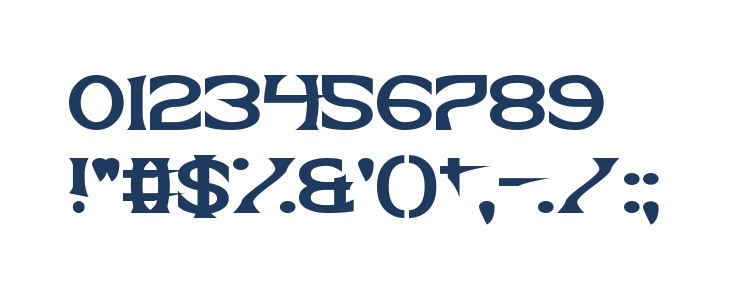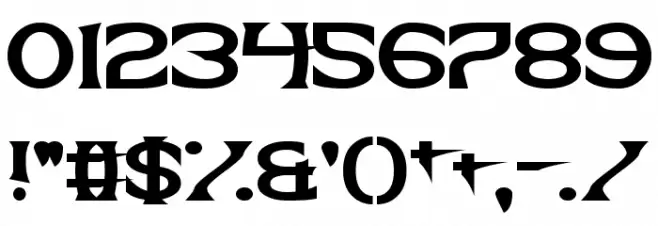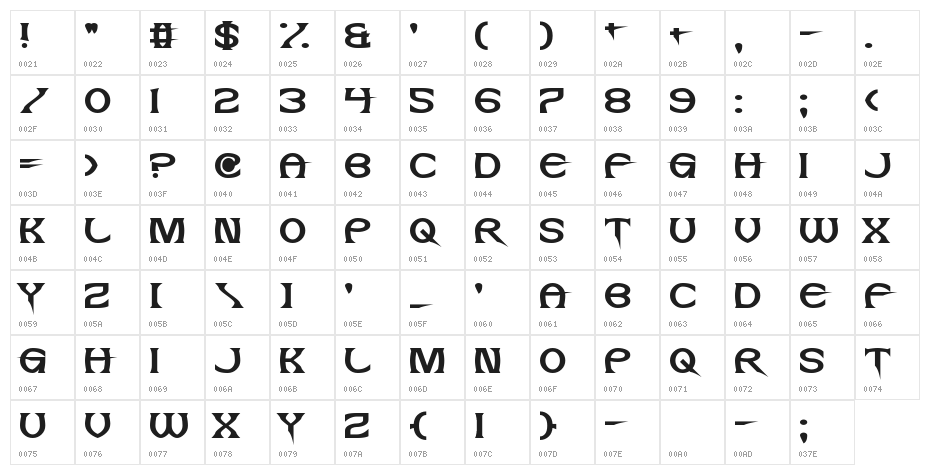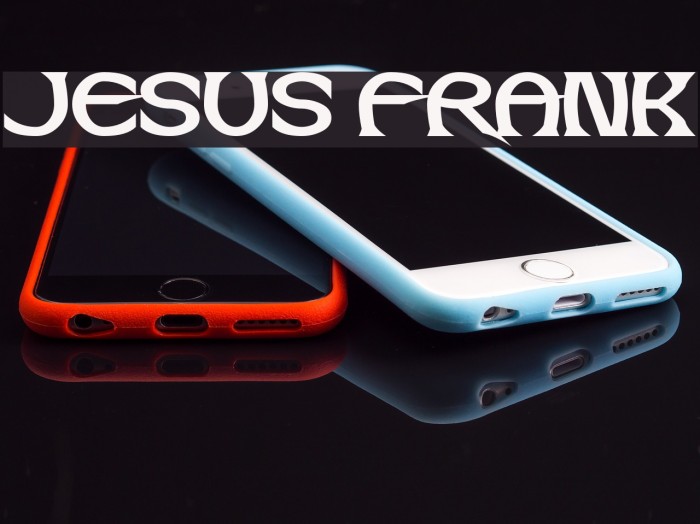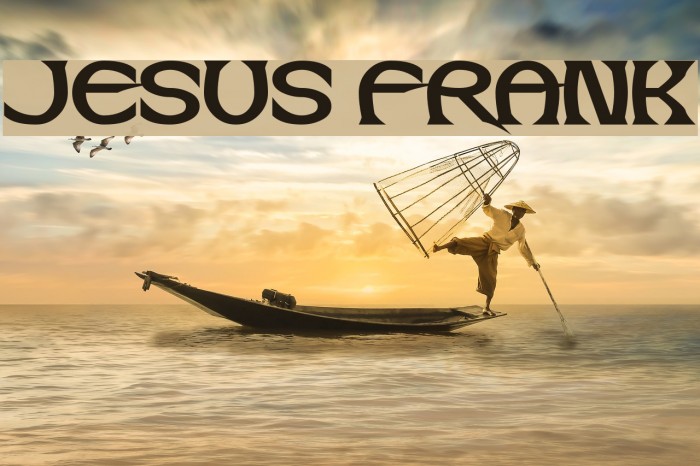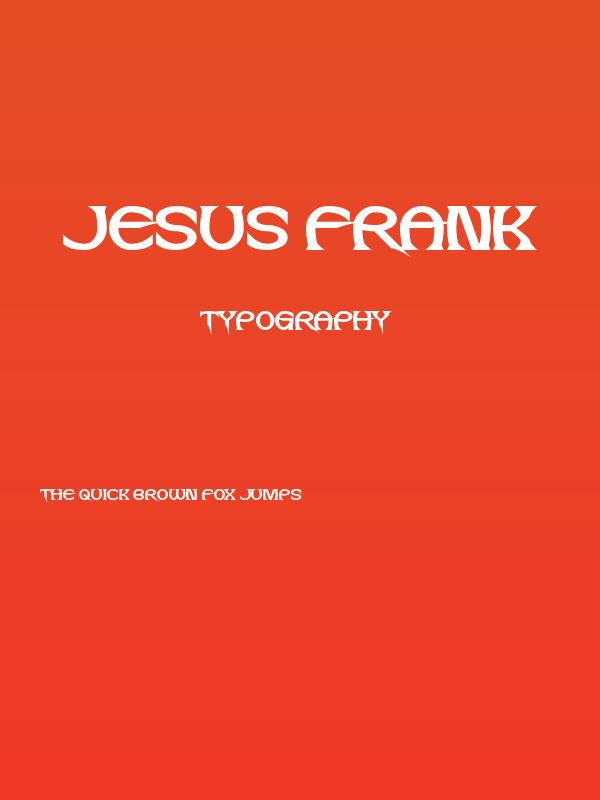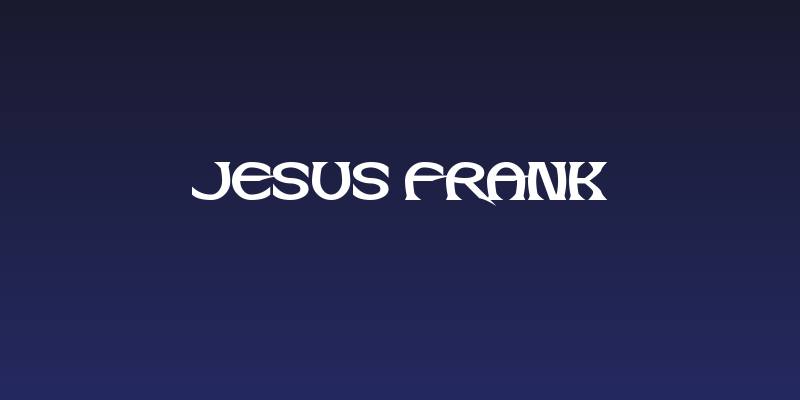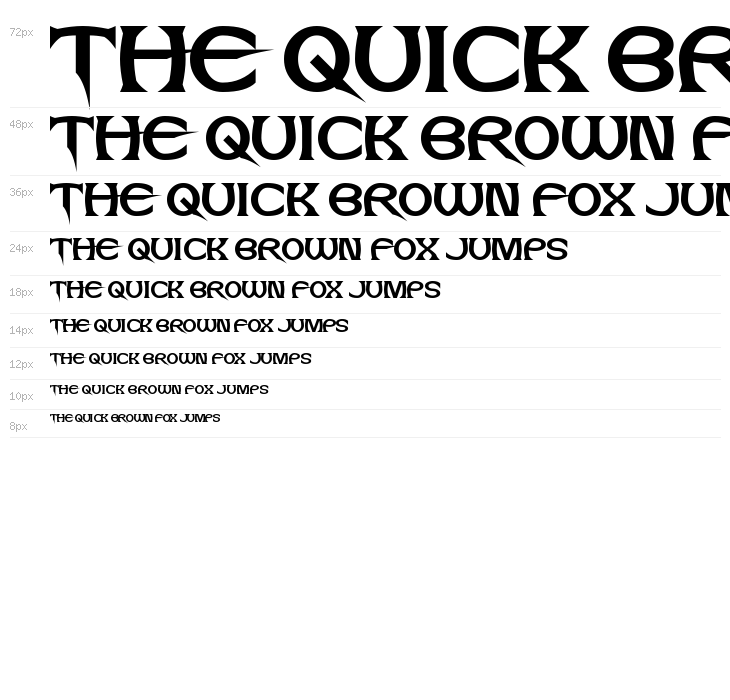
Jesus Frank Font
Jesus Frank Description
This font features a bold and striking design with sharp, angular edges and a gothic influence. The uppercase letters have a distinct, aggressive style with pointed serifs and a heavy weight, creating a dramatic and impactful appearance. The lowercase letters maintain the same boldness, with unique shapes that complement the uppercase set. Numbers and special characters follow the same design principles, ensuring consistency throughout. The font's overall aesthetic is reminiscent of medieval or fantasy themes, making it suitable for projects that require a strong and memorable visual presence.
| Overall Style | Gothic, Dramatic |
| Proposed Projects | Ideal for fantasy book covers, video game titles, movie posters, and branding for edgy or alternative products. |